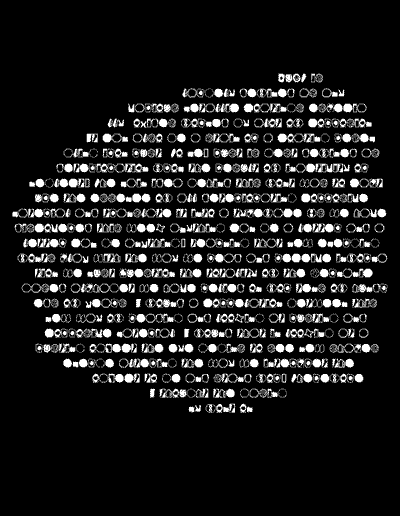
Rust, Rachel Pederson
Rust is largely defined in most cases as any various metallic coating,
especially oxides, formed by corrosion. Rust can also be stain from
resembling iron rust. To me, rust is best defined as deterioration
from the result of inactivity or neglect. The main idea behind this
font for me was to capture the essence of all deteriorating and translate
it into a symbol typeface.